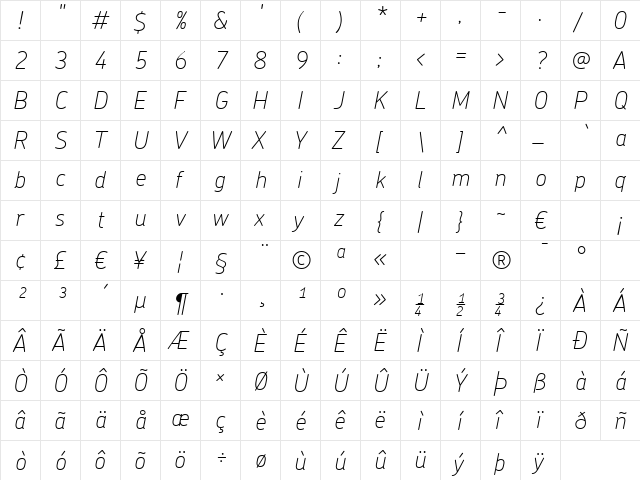
ChevinThinItalic Regular
Design Context for ChevinThinItalic Typeface
ChevinThinItalic is a composed and adaptable typeface that performs quietly and consistently across a wide range of design contexts. Its italic angle brings a sense of urgency and motion to the letterforms. Its slender proportions lend an understated elegance to any composition.
Pro Tip: Try ChevinThinItalic for annotation and caption copy alongside an upright companion — the contrast in angle creates a dynamic but ordered typographic system.